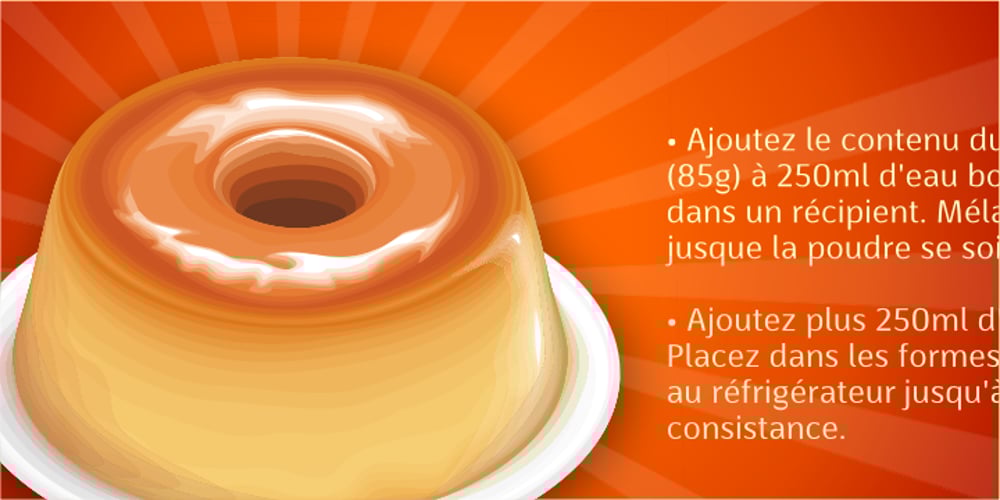
BaselSans ITD Font Family was designed by Isac Rodrigues and published by Isaco Type. BaselSans ITD contains 1 styles and family package options. BaselSans is a discrete, legible typeface, inspired by the international typographic style, with a humanistic touch. It is suitable for many uses, from small size texts to large titles.